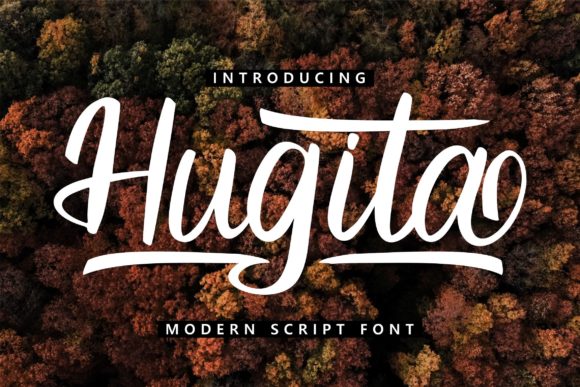
Journey into the realm of impeccable aesthetics with Hugita Font, a breathtaking creation by Vunira that exudes an air of sophistication and allure. This script font, meticulously crafted with the essence of pop art, is a living, breathing masterpiece that will transform your designs into captivating works of art. Its enchanting allure lies in the elegant touch that graces its every curve, a testament to the designer's unwavering attention to detail and passion for excellence.
Prepare to be mesmerized by Hugita's incredibly distinct and timeless style, a fusion of classic charm and contemporary flair. Each letter dances across the page with an effortless grace, carrying with it a story of passion, creativity, and boundless imagination. With Hugita as your artistic muse, you'll unlock a world of possibilities, where every design you create becomes a reflection of your unique style and vision.
Indulge in the boundless versatility of Hugita Font, a font that effortlessly adapts to a myriad of creative endeavors. Whether you're crafting captivating social media posts, designing eye-catching logos, or creating personalized invitations that leave a lasting impression, Hugita will be your trusted companion, elevating your designs to new heights of excellence. Experience the joy of seamless creativity as Hugita seamlessly integrates into your workflow, becoming an extension of your imagination and a catalyst for your artistic triumphs.
Embrace the allure of a font that speaks to your emotions, igniting a spark of inspiration within you. Hugita Font is not merely a collection of letters; it's a gateway to a world where your imagination roams free and your creativity knows no bounds. Join the ranks of discerning designers who have discovered the transformative power of Hugita, and embark on a journey of artistic exploration that will leave an enduring legacy of beauty and innovation.